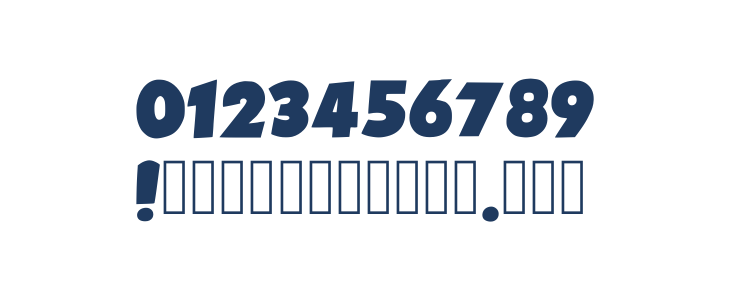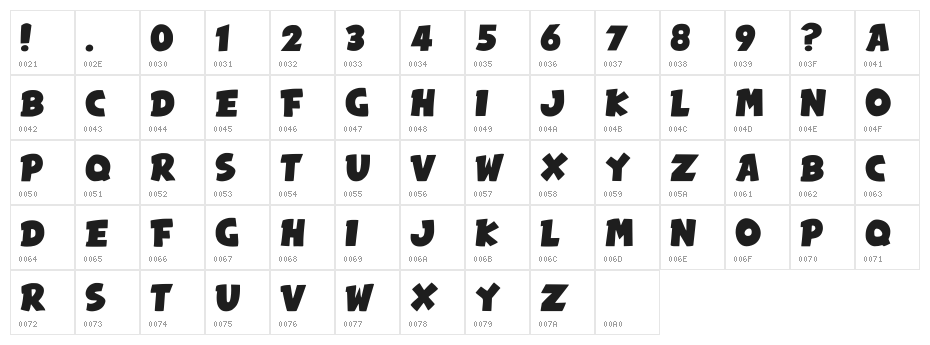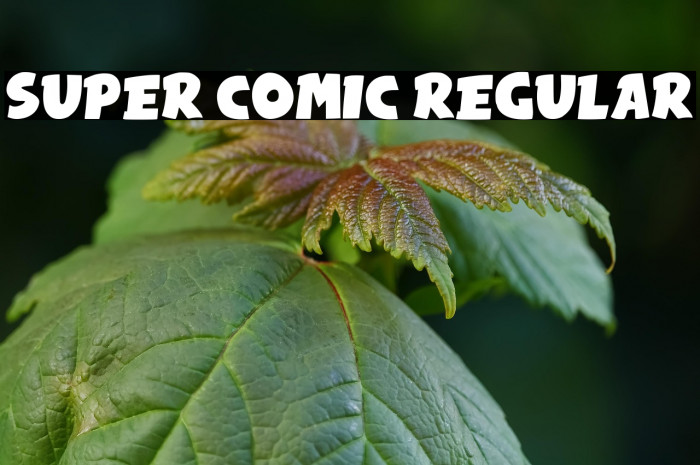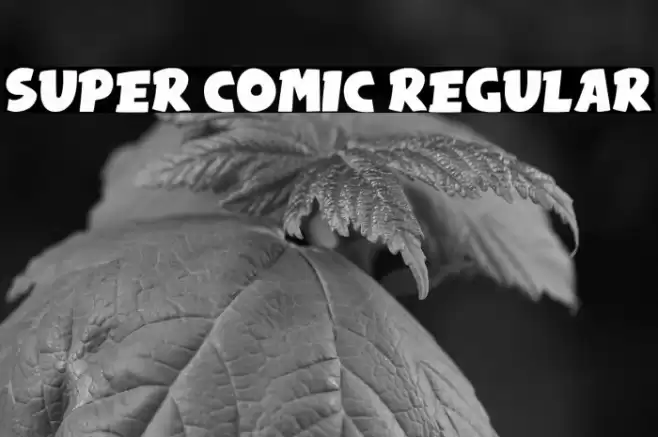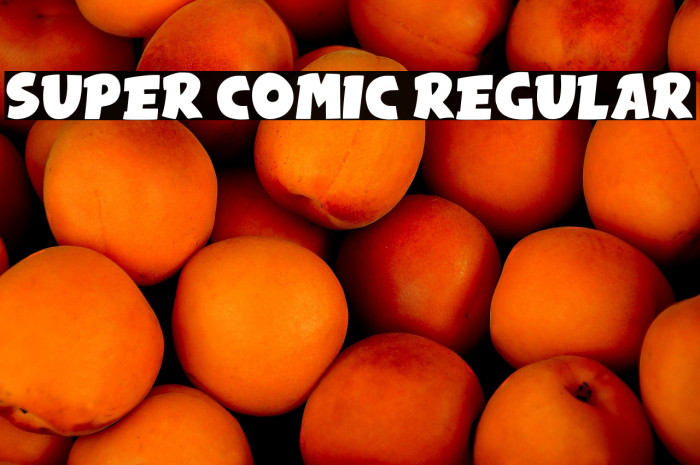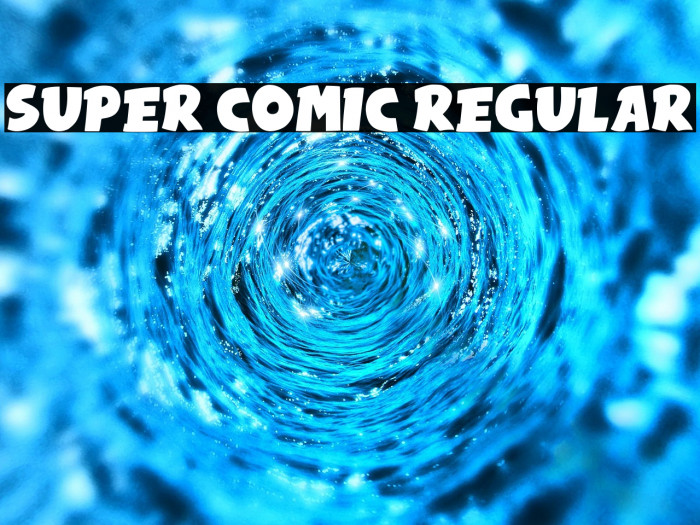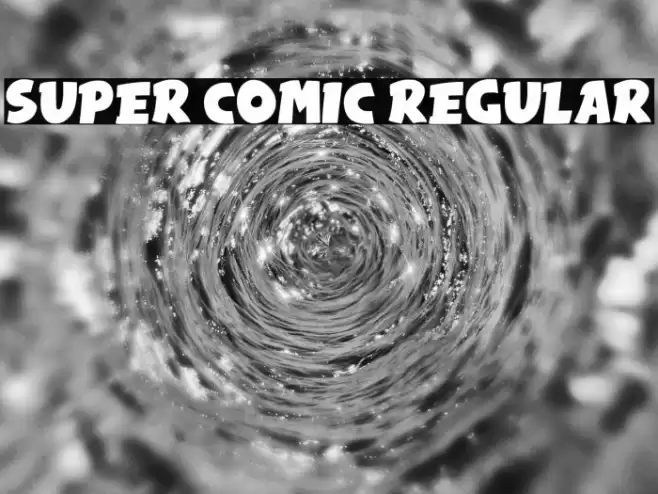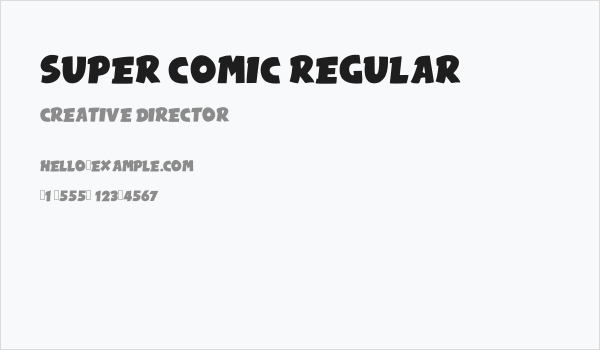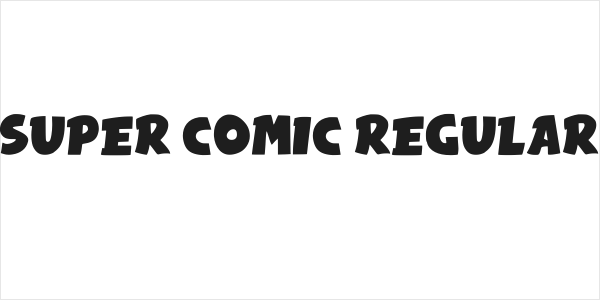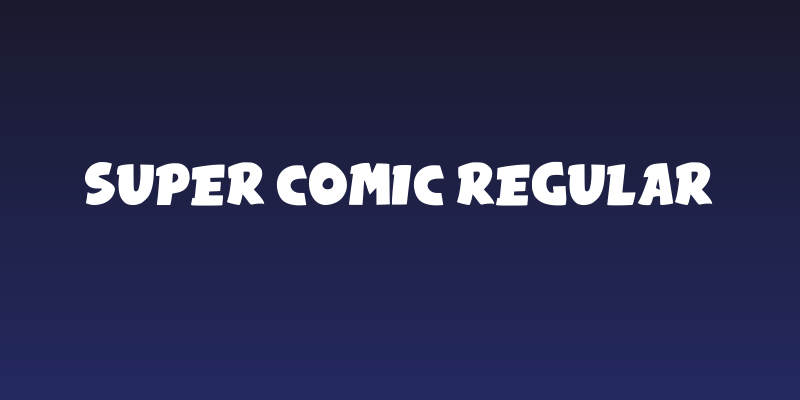
Super Comic Regular Font
Super Comic Regular Description
This font features a bold and playful style, characterized by thick, rounded strokes and a slightly irregular baseline that gives it a dynamic and energetic appearance. The letters are wide and have a strong presence, making them ideal for catching attention. The uppercase and lowercase letters maintain a consistent style, with exaggerated curves and a cartoonish flair. The numbers are equally bold, with a uniform thickness that complements the letters. The special characters, such as the exclamation mark and question mark, are designed with the same playful aesthetic, ensuring a cohesive look across all characters.
| Overall Style | Playful, Cartoonish, Energetic |
| Proposed Projects | Ideal for comic books, children's books, playful branding, and eye-catching headlines. |